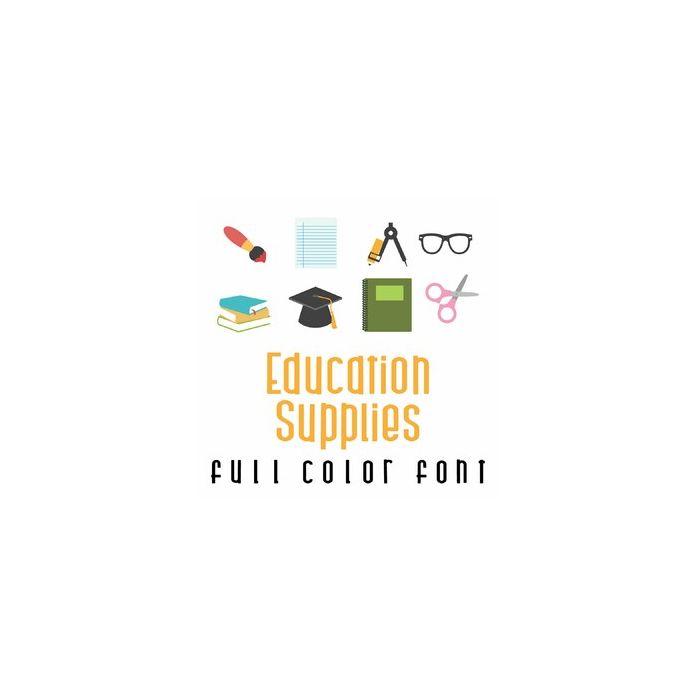
This adorable full color doodlebat font features 26 classroom supplies. Perfect for cards, crafts, gifts, decor, scrap book pages, planner stickers and more!